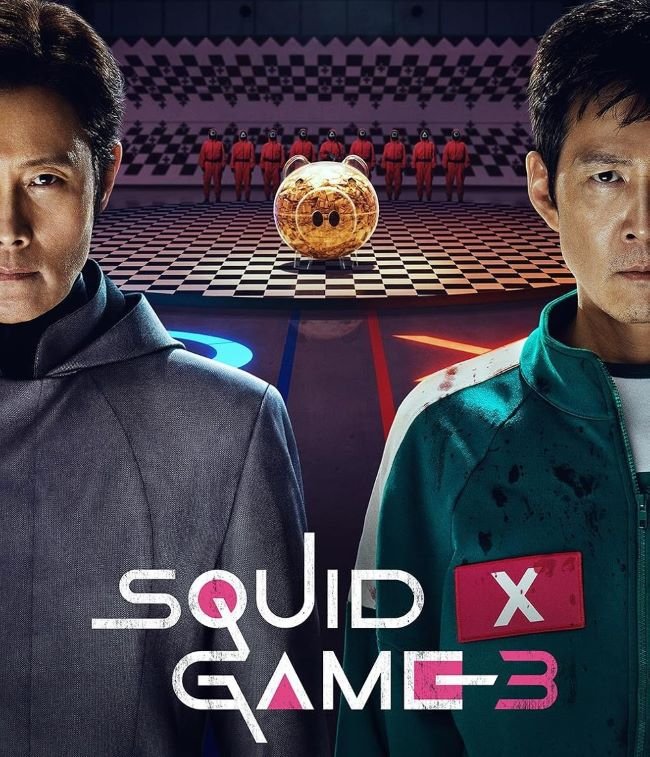
Squid Game font arrived with the Netflix phenomenon it named in 2021 and became, almost overnight, one of the most globally recognised title treatments of the streaming era — a bold, geometric sans-serif in which circles, triangles, and squares are embedded as decorative elements, the same shapes that appear on the guards’ masks and the game cards, embedding the show’s visual system directly into its own lettering. The typography is clean and playful on the surface, with the cheerful primary-colour aesthetic of a children’s game, which makes its context — a lethal competition built on the desperation of debt-ridden contestants — land with precisely the intended dissonance. The freely available Game of Squids font reconstructs this striking geometric register.